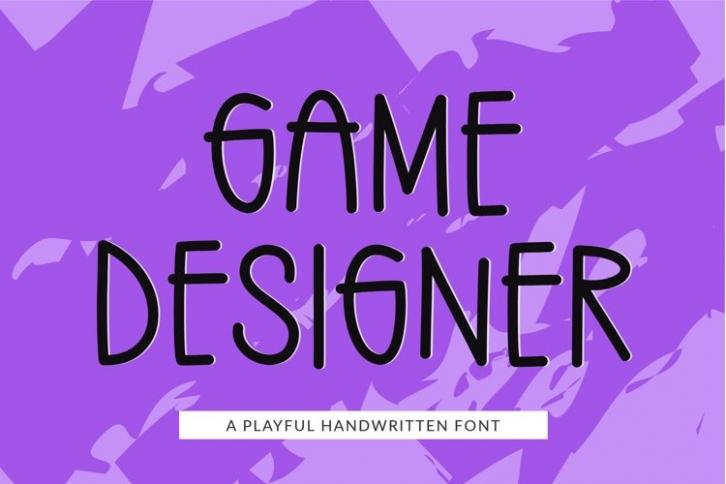
Game Designer, a handwritten craft is a great font that was designed by plusstore. Imagine the amount of combinations you can create using this font! The archive is 18.1 MB and it was released on December 23, 2021. Game Designer, a handwritten craft looks beautiful on wedding invitations, greeting cards, logos, posters, labels, t-shirt designs, logos, business cards and is perfect for use in ink or watercolor works, fashion, magazines, packaging and food menus, children's books and more!